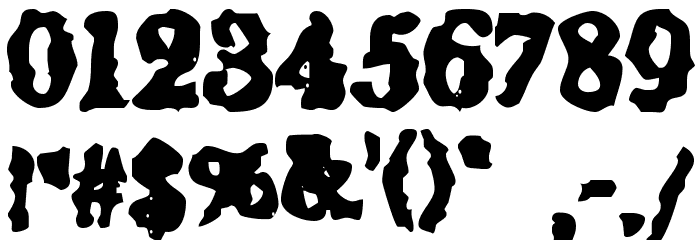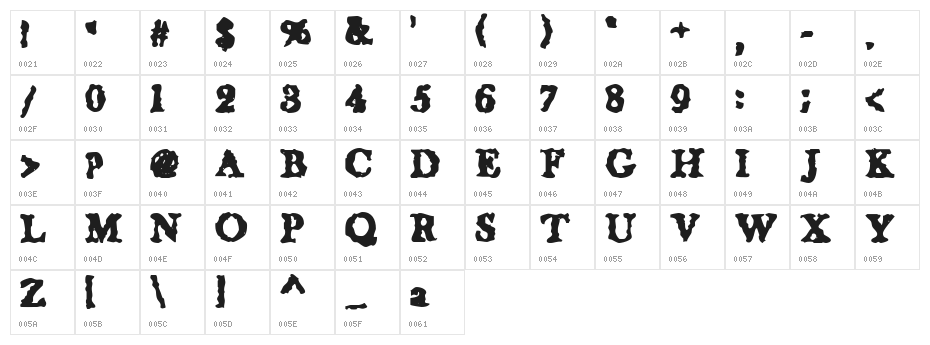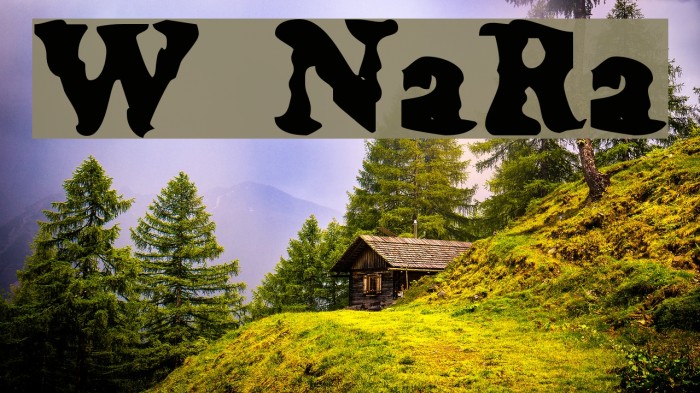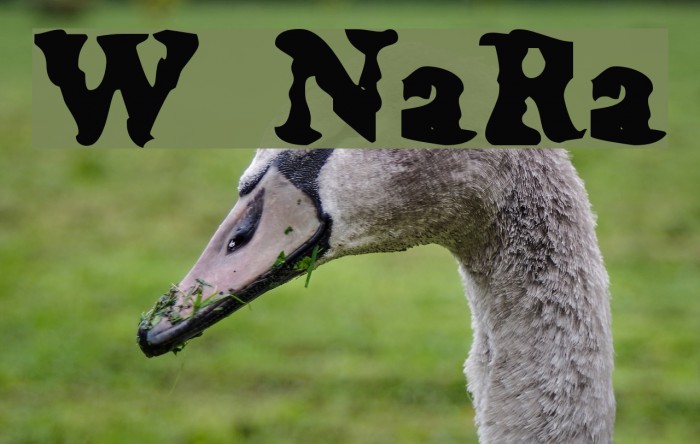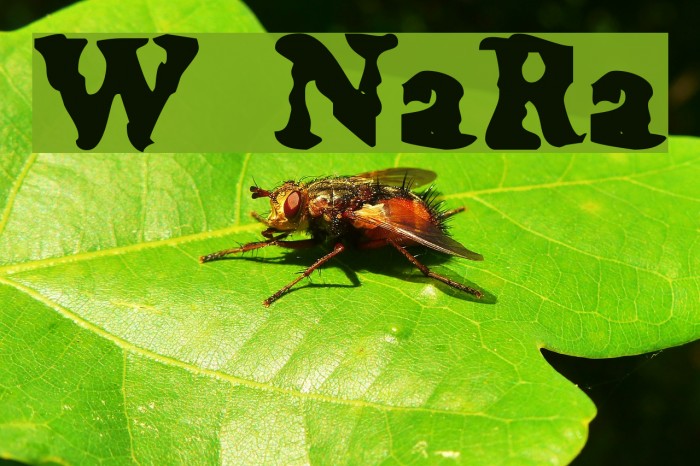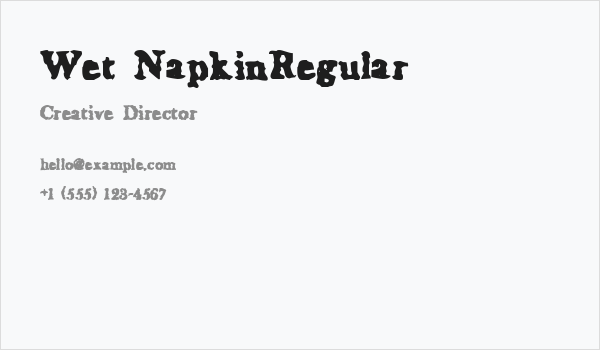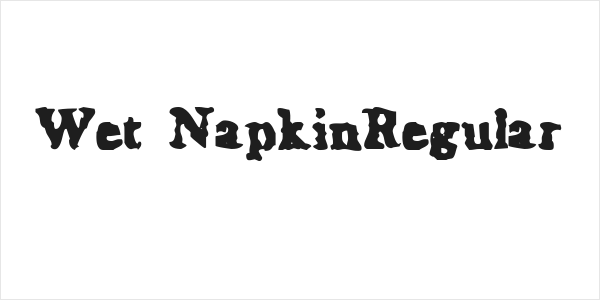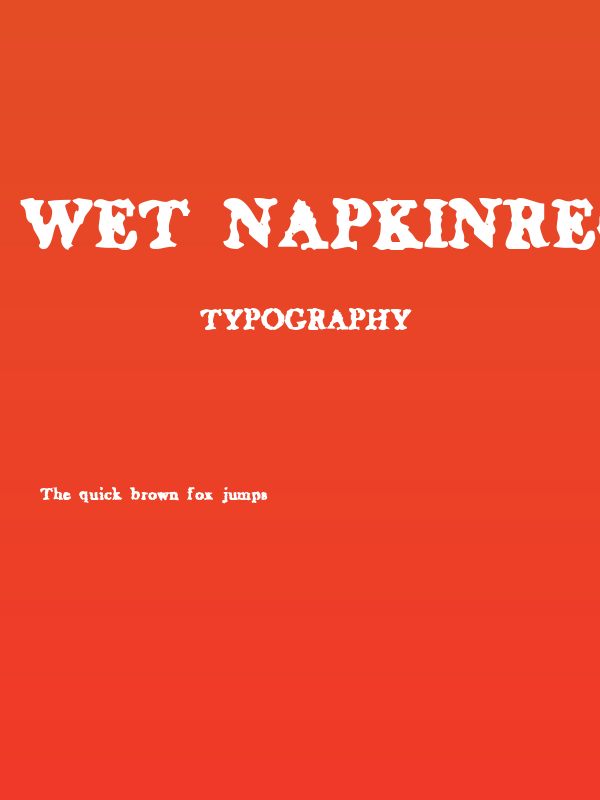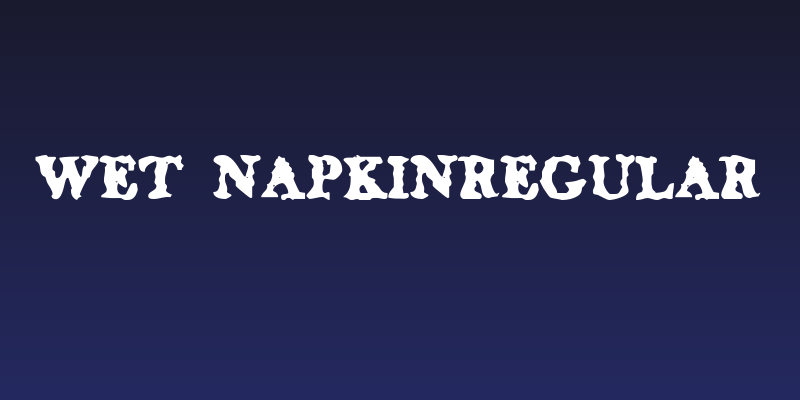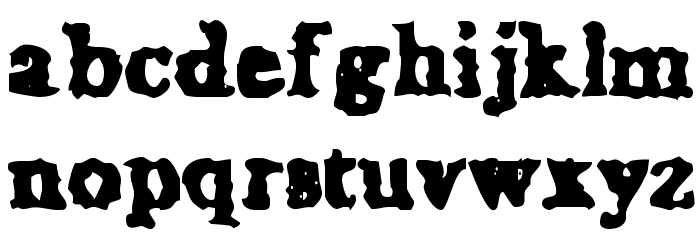
Wet NapkinRegular Font
Wet NapkinRegular Description
This font features a highly irregular and textured design, reminiscent of ink blots or splattered paint. The characters are bold and have a distressed appearance, with uneven edges and varying thicknesses throughout. This creates a dynamic and eye-catching effect, making it suitable for projects that require a grunge or artistic flair. The uppercase and lowercase letters maintain this rugged style, while the numbers and special characters follow suit, ensuring consistency across the typeface. Its unique aesthetic makes it stand out, perfect for creative and unconventional design projects.
Use CaseHeadlines, Logos, Artistic projects
Proposed ProjectsIdeal for album covers, posters, artistic branding, and edgy graphic designs.